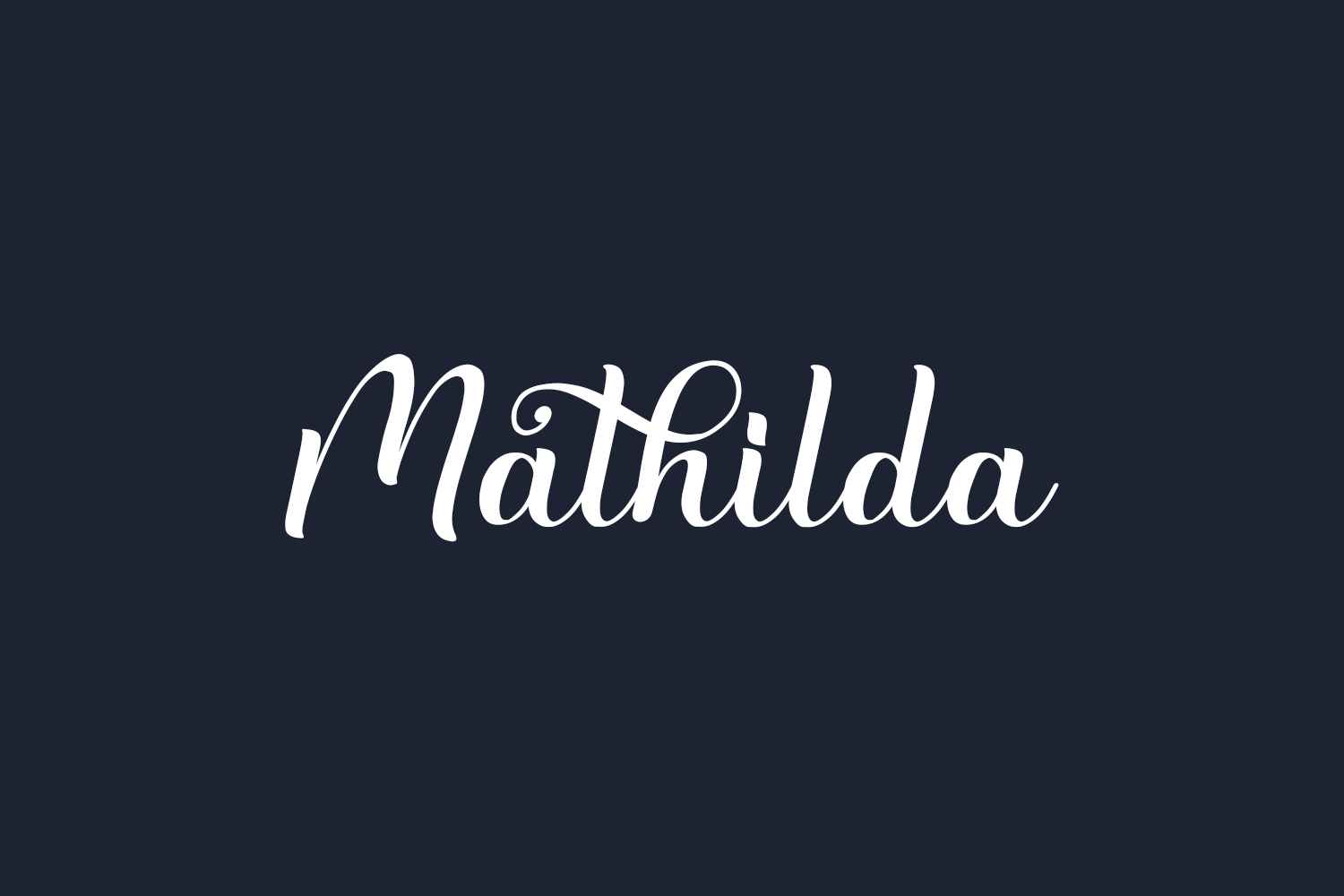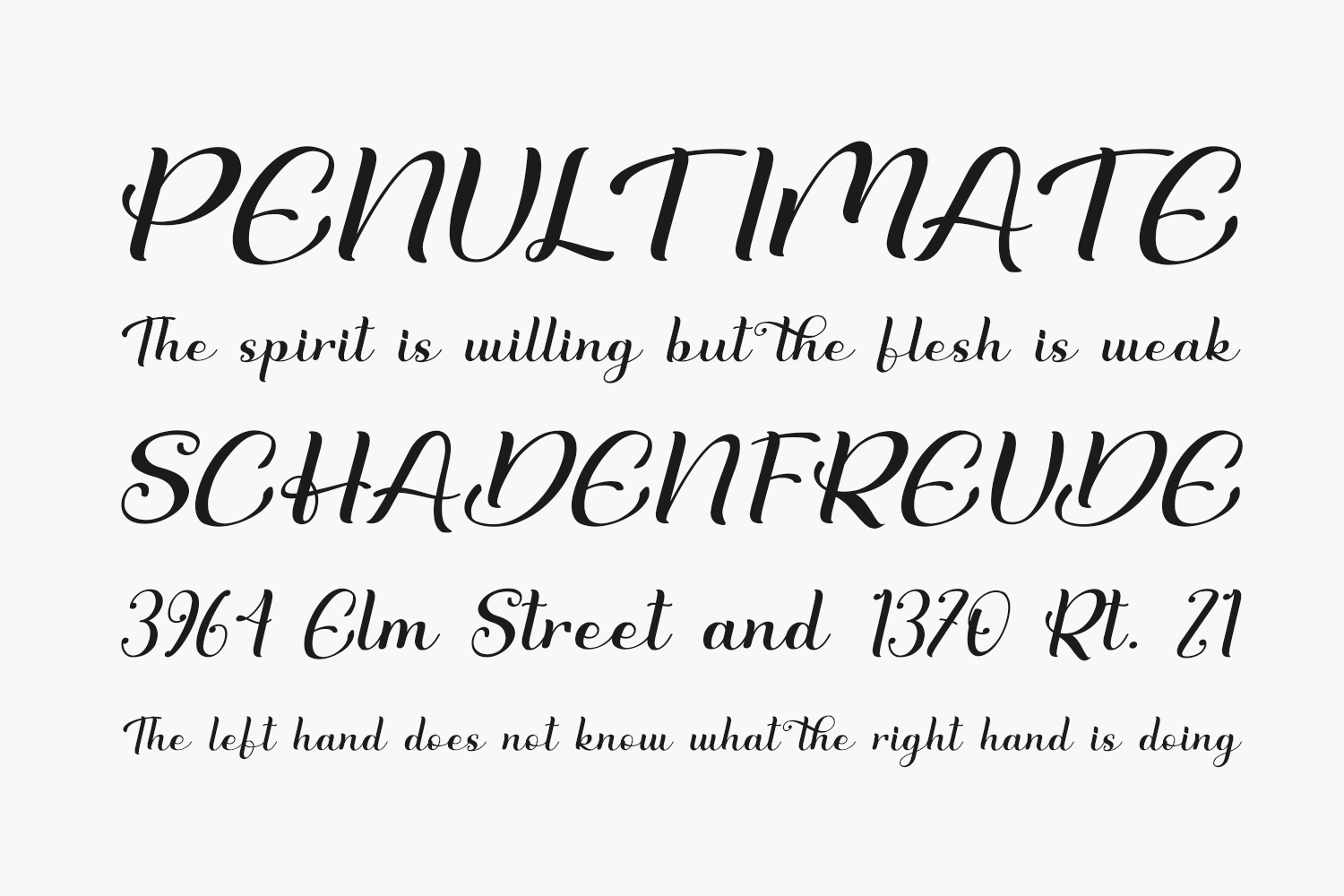
Mathilda Free Font is a flowing handwritten font, described by an elegant touch, perfect for your favorite projects. Mathilda Free Font is free for personal use only. Please purchase the full version for commercial use.